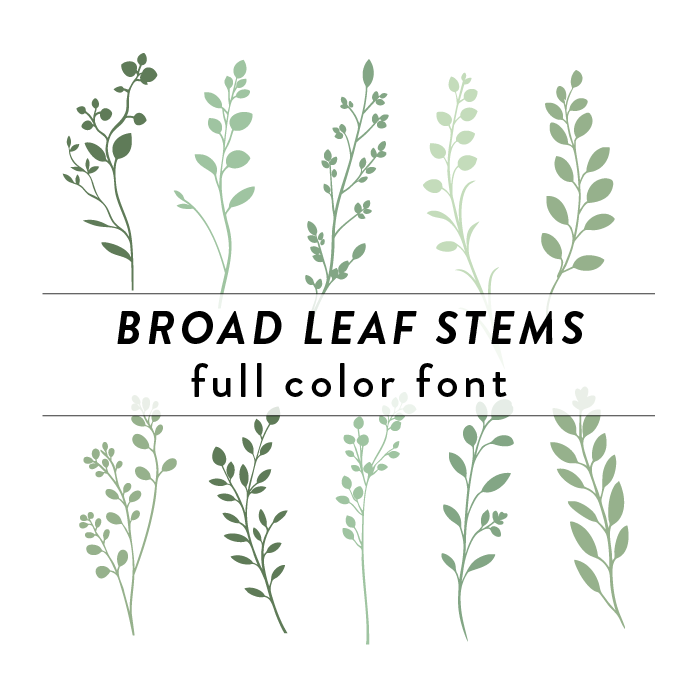
Broad Leaf Stems Full Color Font is a decorative font design inspired by trees, branches, and leaves found in a lush garden. The key features include intricate leaf motifs intertwined with elegant stems, creating a whimsical and organic look. This font style is perfect for nature-themed projects.